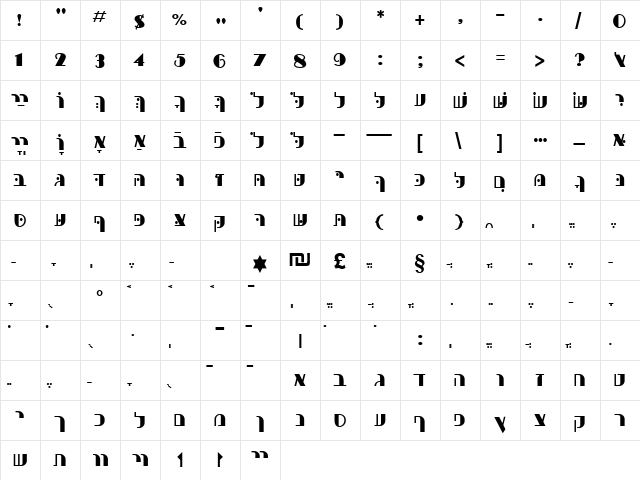
HebrewPurim Bold
Design Context for HebrewPurim Typeface
HebrewPurim offers clean, dependable letterforms without strong stylistic allegiance, making it a practical choice for designers who need flexibility. The heavy weight commands attention and anchors typographic hierarchies.